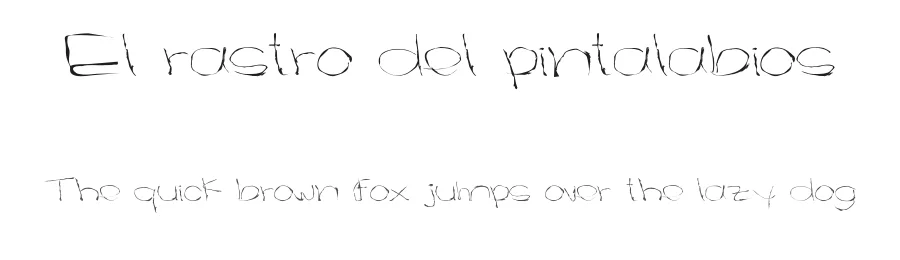
About Slender Font
Slender is a script & handwritten font designed by Simón Saavedra. It includes 236 glyphs, a regular weight, TTF (TrueType) format, and 209 languages. Slender is free to download; check the license details on this page before commercial use. Script & handwritten fonts like Slender work best for wedding invitations, greeting cards, signatures, and elegant branding.
Slender Font is a script font that shines as a display or heading face. Pair it with a clean sans-serif or serif font for body text — the contrast creates a clear hierarchy while the two styles stay balanced and easy to read.